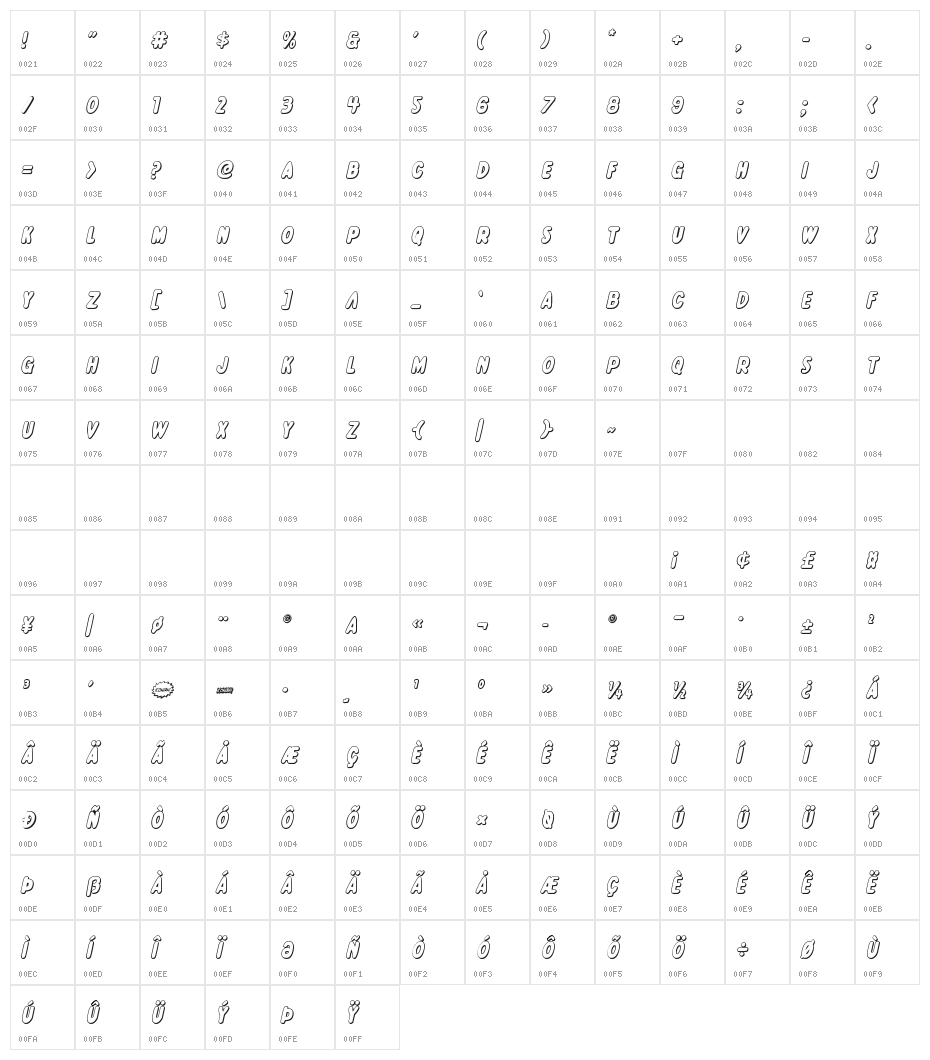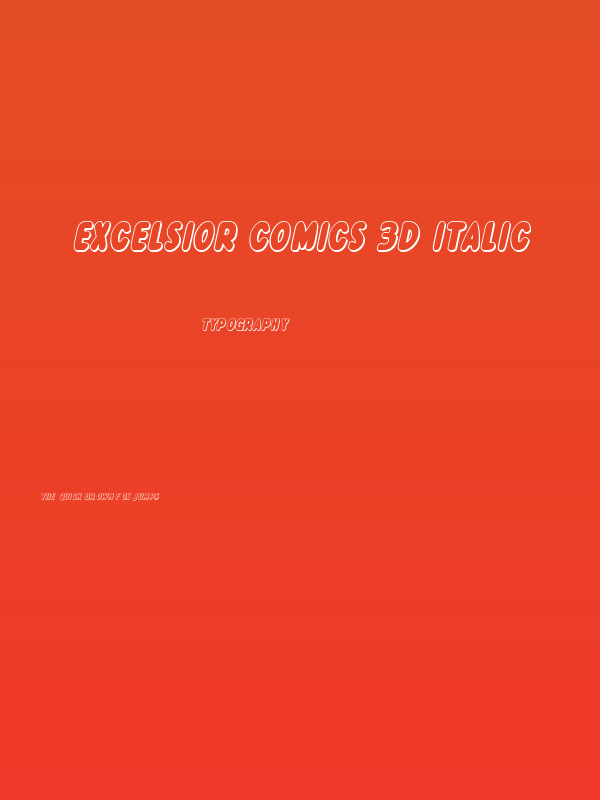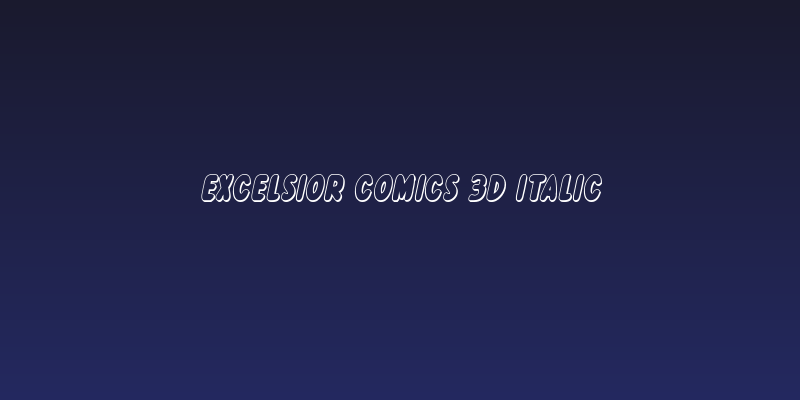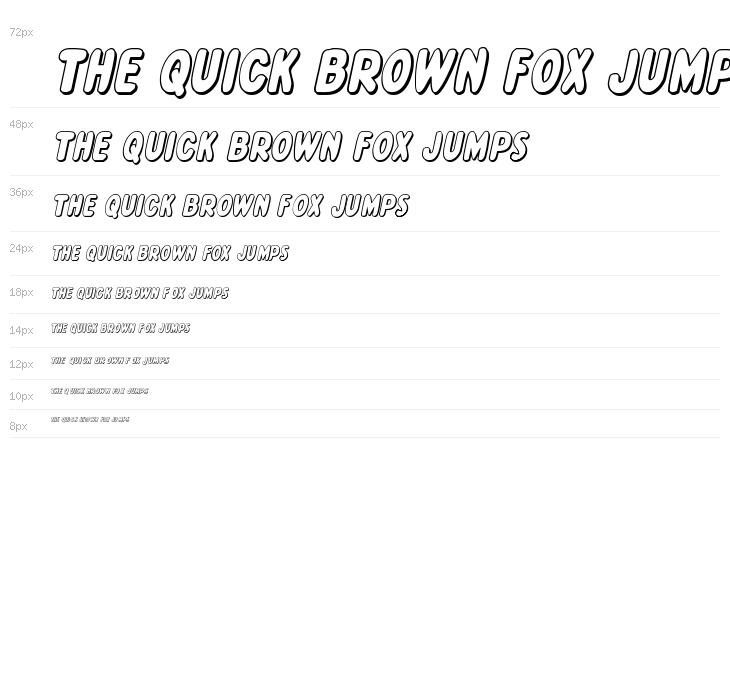
Excelsior Comics 3D Italic Font
Excelsior Comics 3D Italic Description
This font features a bold, three-dimensional appearance with a playful and dynamic style. The letters are outlined, giving them a distinct shadow effect that enhances their 3D look. The characters are rounded and slightly condensed, contributing to a friendly and approachable aesthetic. The italic slant adds a sense of motion and energy, making it ideal for projects that require a lively and engaging typeface. The numbers and special characters maintain the same bold and outlined style, ensuring consistency across all elements.
| Proposed Projects | Ideal for comic book titles, children's book covers, playful branding, and eye-catching posters. |